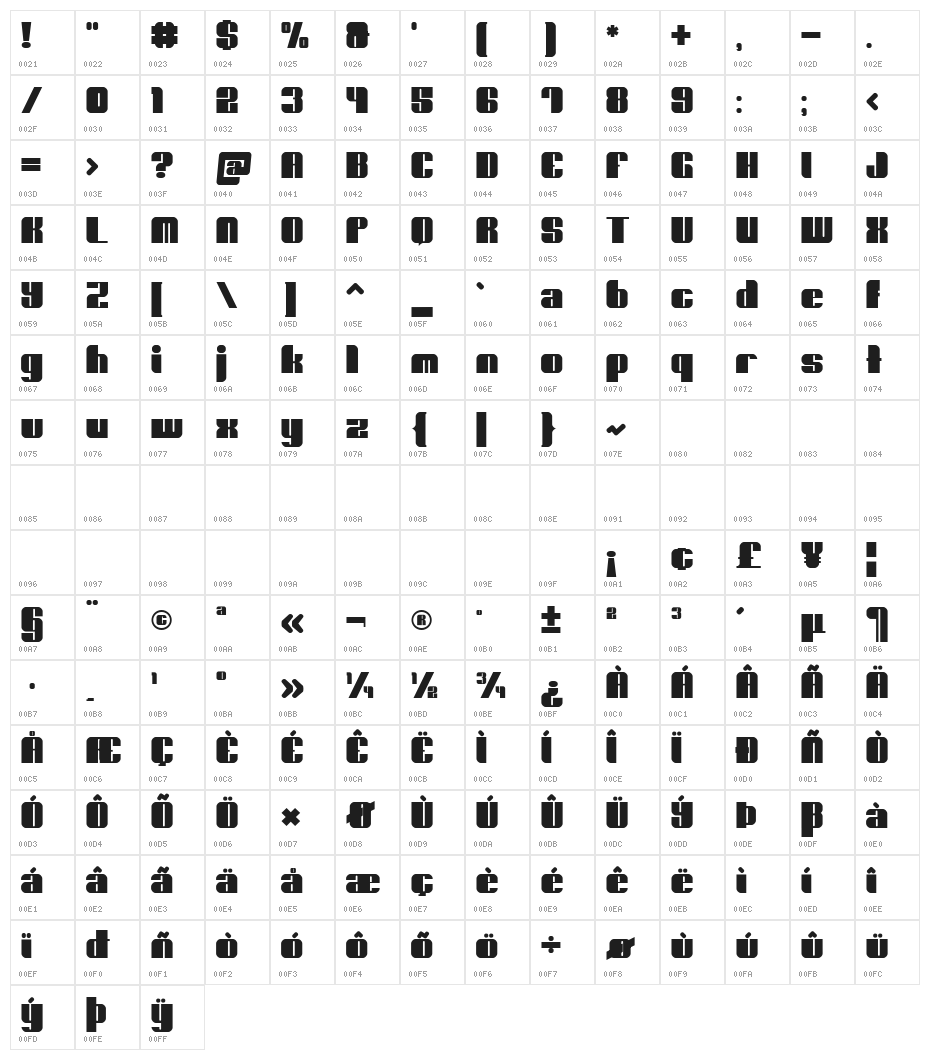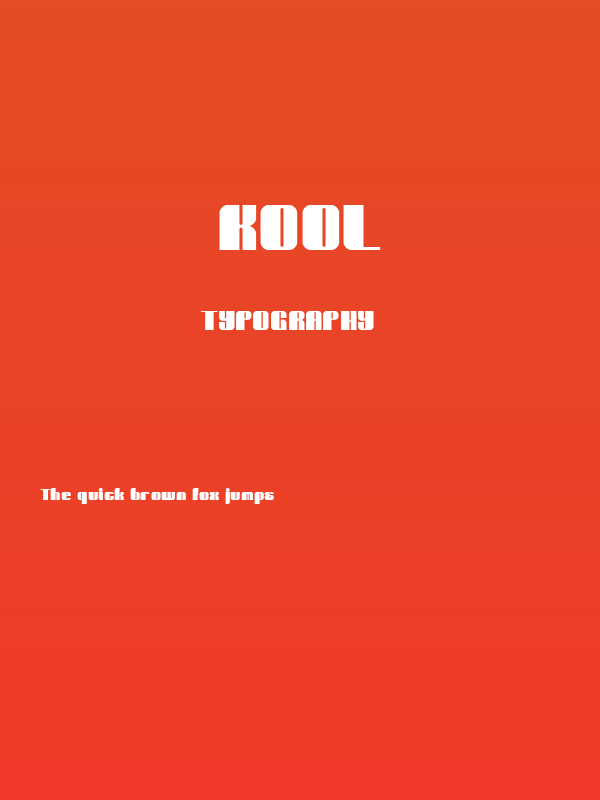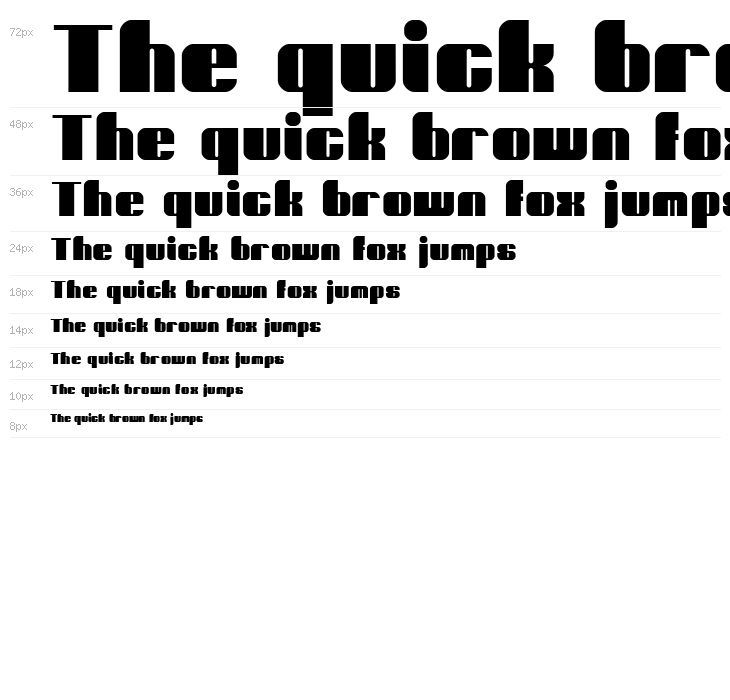
Kool Font
Kool Description
This font features a bold and striking design with a strong geometric influence. The characters are blocky and robust, with a consistent thickness throughout, creating a sense of uniformity and strength. The uppercase letters are particularly wide and imposing, while the lowercase letters maintain the same boldness with slightly more rounded edges. Numbers and special characters follow the same design principles, ensuring a cohesive look across all elements. The font's style is reminiscent of industrial or futuristic themes, making it ideal for projects that require a bold statement.
| Proposed Projects | Ideal for posters, logos, branding, and any design needing a bold, impactful typeface. |